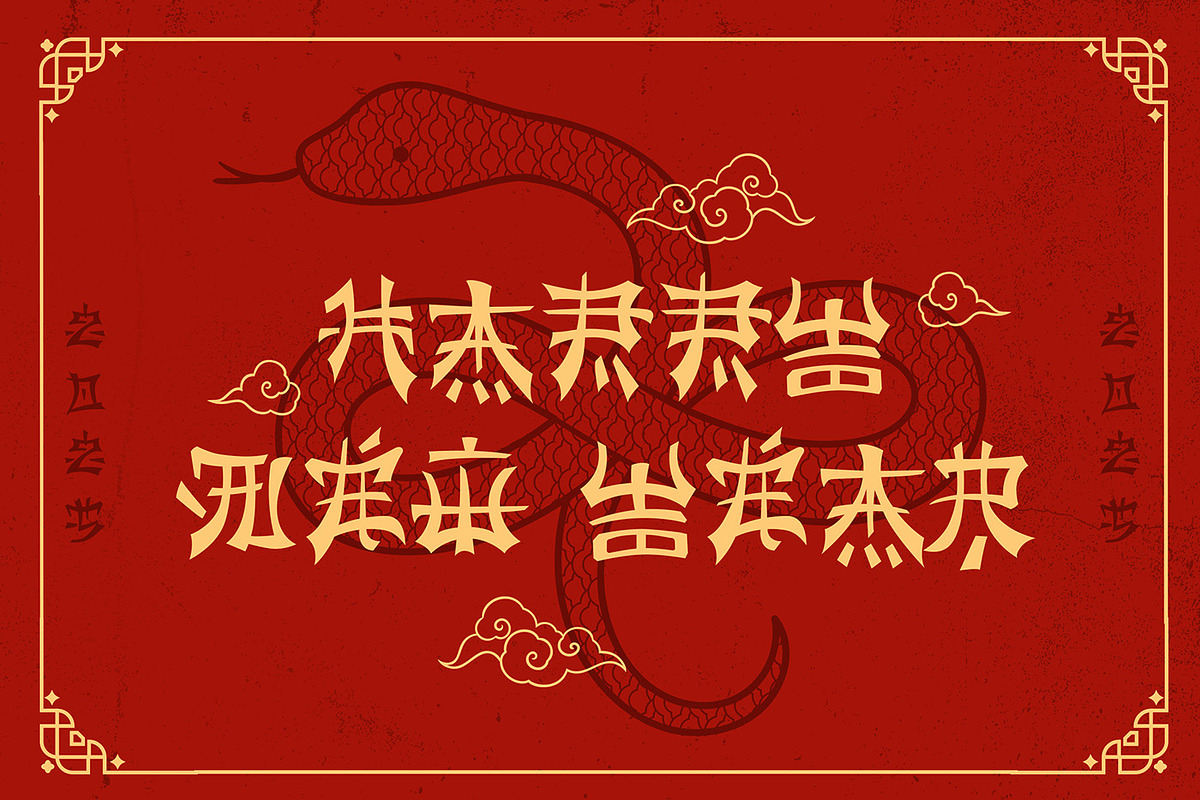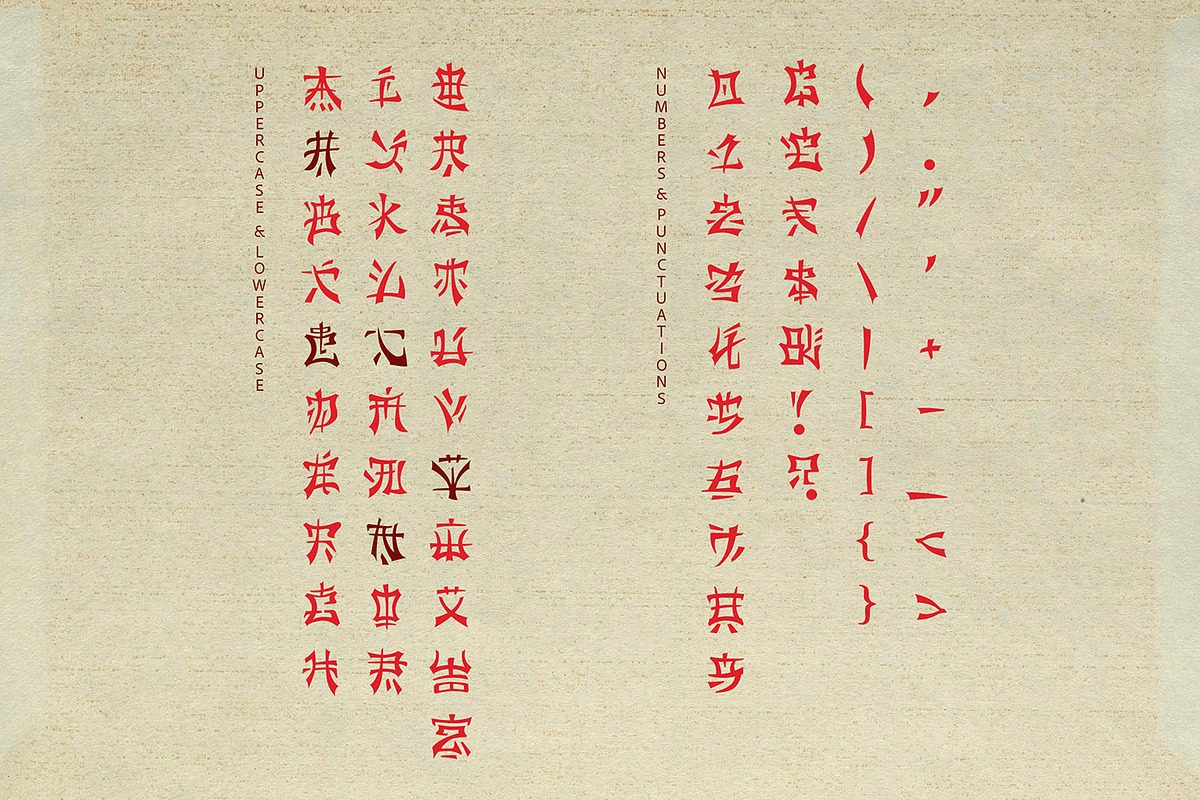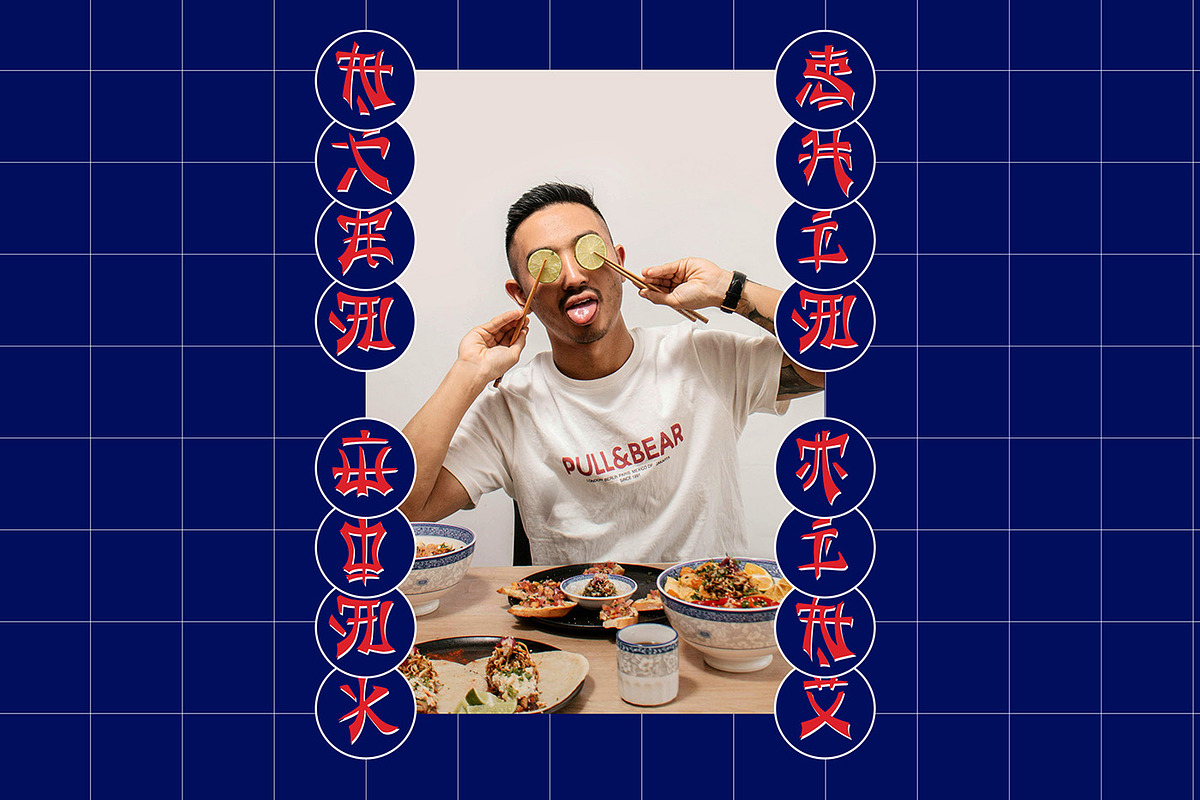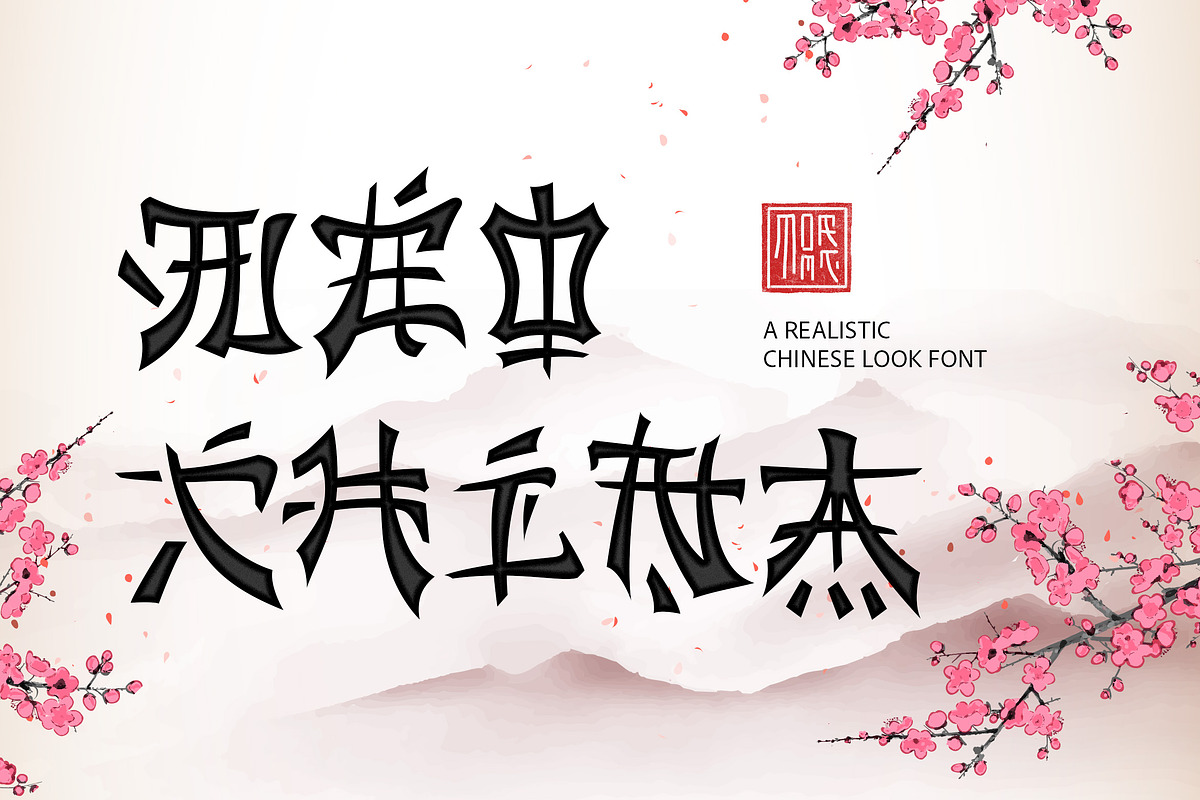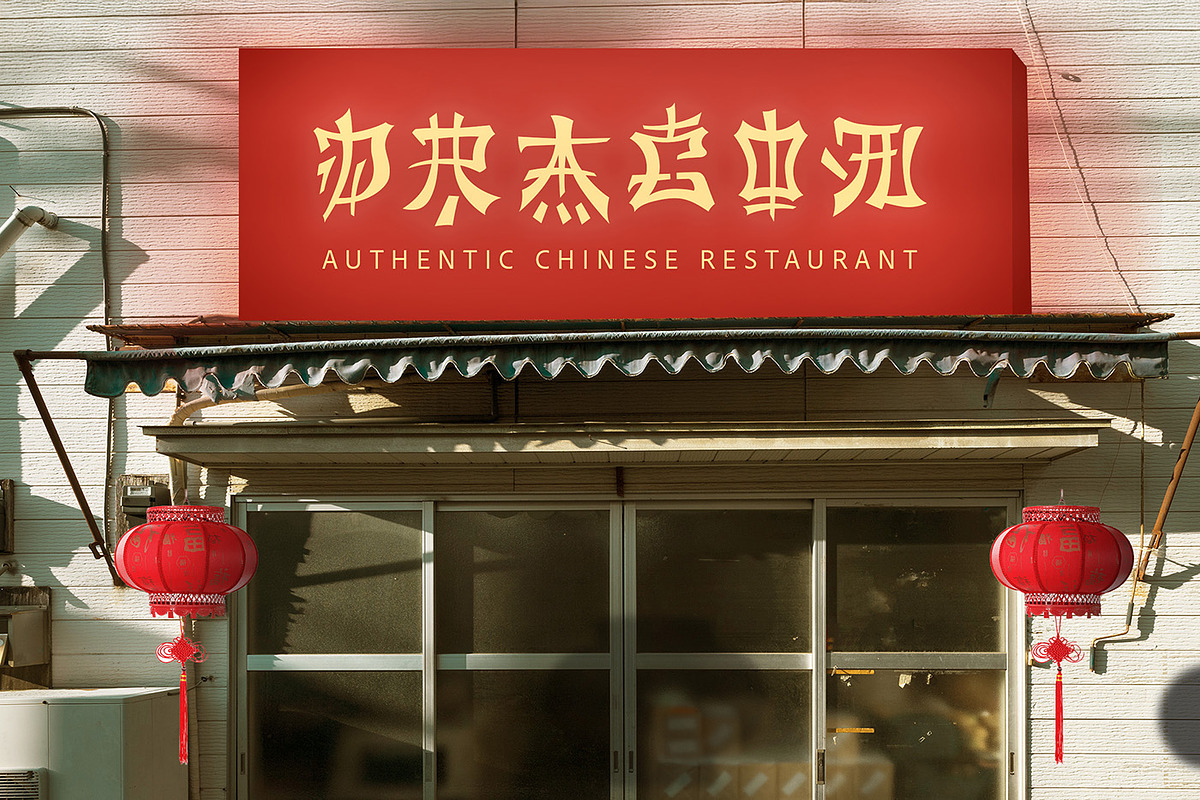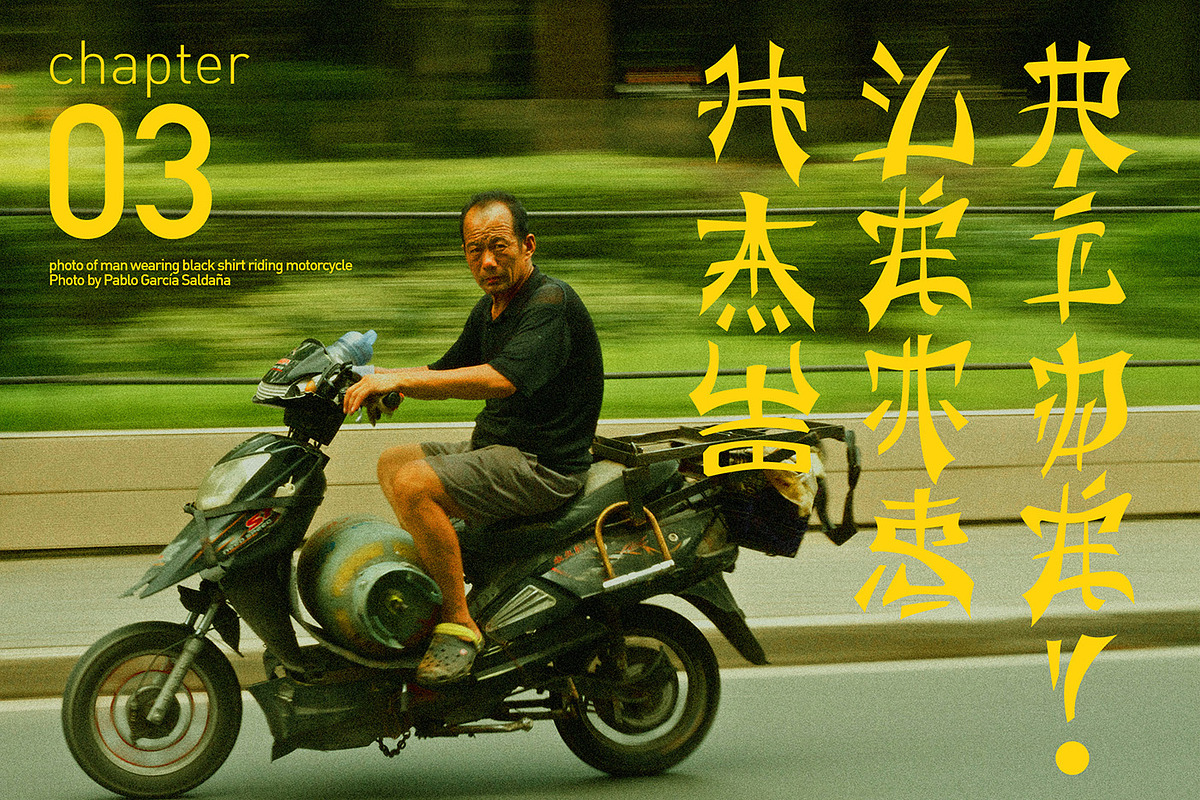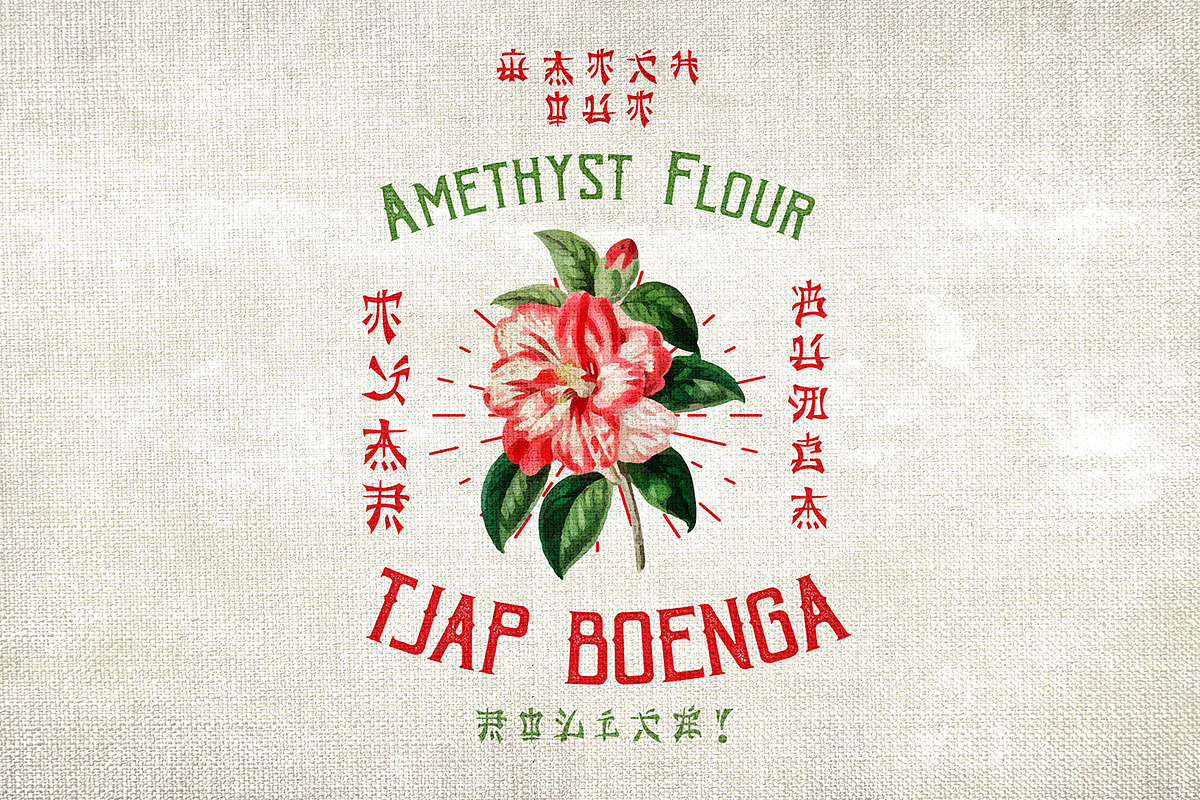
Chinese look fonts | Neo China
Before creating this font, I learn about Chinese and Japanese kanji structure to make the font looks like their original. The main purpose of this font is to create as similar as possible with the original Chinese type, so if we using basic alphabet of course we need to modify the shape and adding some ornaments, nevertheless I still keep the basic alphabet shape to make it easier to read.
This one perfect for your Chinese look design, Chinese lunar year etc. there's alternate in some letters, you can check in the preview.